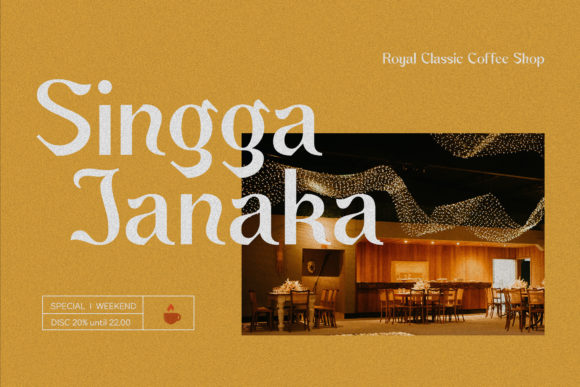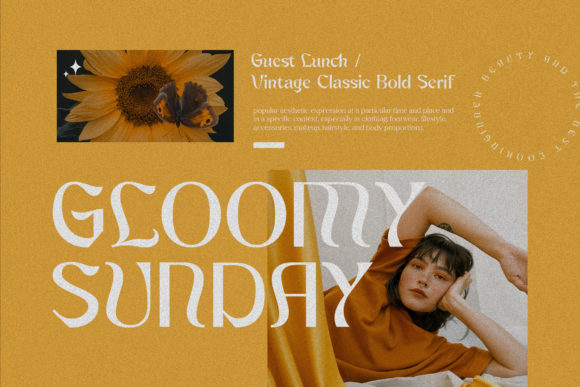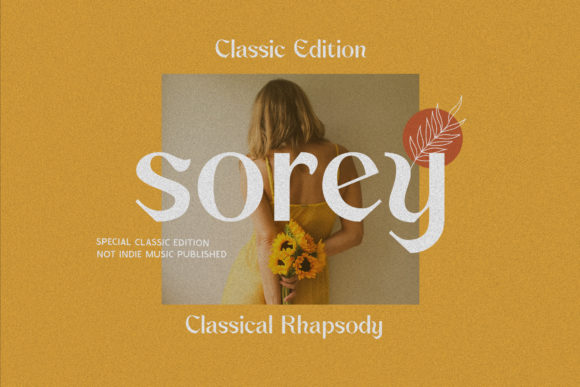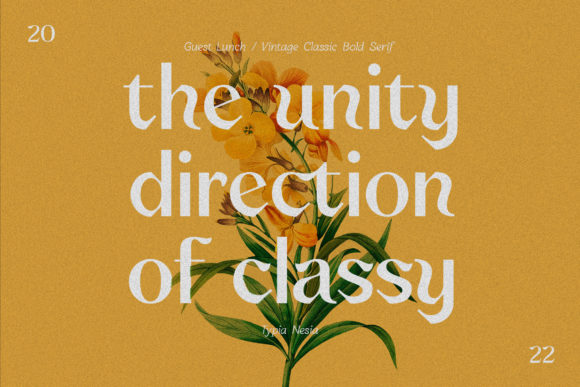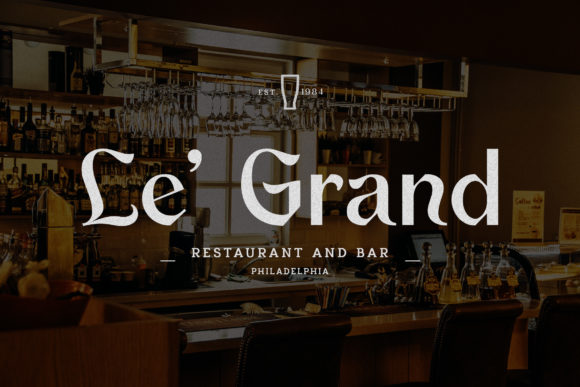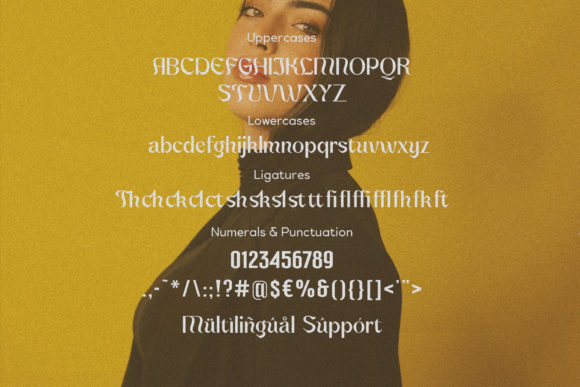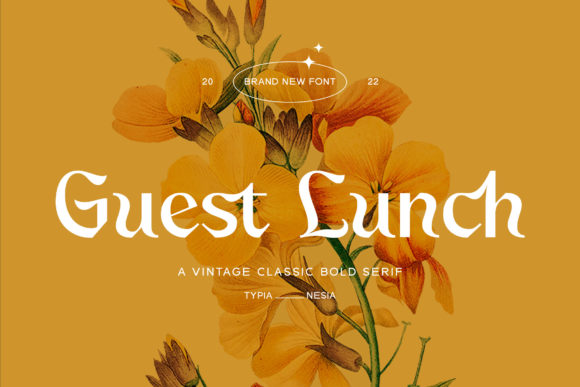
Introducing Guest Lunch Font: Elevate Your Designs with Elegance and Sophistication
In the world of design, typography plays a crucial role in conveying the tone and aesthetic of a project. For designers and crafters seeking a font that exudes luxury, class, and sophistication, Guest Lunch Serif is an exceptional choice. This versatile font is perfect for a wide range of applications, from high-end branding and editorial design to promotional materials and digital platforms.
Luxury and Versatility
Guest Lunch Serif is a masterclass in typographic design, boasting elegant lines, refined curves, and a sophisticated demeanor. Its versatility makes it an ideal choice for various projects, including:
- Luxury logo and branding: Create a lasting impression with a font that screams opulence and refinement.
- Classy editorial design: Elevate your publications with a typography that commands respect.
- Woman magazine: Add a touch of femininity and glamour to your content.
- Cosmetic brand: Convey a sense of high-end quality and sophistication.
- Fashion promotional: Make a statement with a font that’s as stylish as the designs you’re promoting.
- Art gallery branding: Showcase your art with a typography that’s as refined as the pieces on display.
- Museum: Add a sense of history and culture to your branding.
- Historical architecture: Pay homage to the past with a font that’s reminiscent of a bygone era.
- Boutique branding: Create a unique and luxurious identity for your boutique.
- Stationery design: Elevate your stationery with a typography that’s both elegant and refined.
- Blog design: Add a touch of sophistication to your online platform.
- Modern advertising design: Make a statement with a font that’s both modern and luxurious.
- Card invitation: Impress your guests with a typography that’s both elegant and refined.
- Art quote: Showcase your artistic side with a font that’s as creative as you are.
- Home decor: Add a touch of luxury to your home decor with a typography that’s both sophisticated and refined.
- Fantasy movie/game: Create a sense of wonder and magic with a font that’s both imaginative and luxurious.
- Novel/book/cover title: Make a lasting impression with a typography that’s both elegant and refined.
- Special events: Create a sense of occasion with a font that’s both luxurious and sophisticated.
Why Choose Guest Lunch Serif?
Guest Lunch Serif is more than just a font – it’s a design statement. Here are just a few reasons why you should consider it for your next project:
- Elegance and sophistication: Guest Lunch Serif exudes luxury and refinement, making it perfect for high-end branding and design projects.
- Versatility: This font is suitable for a wide range of applications, from print to digital platforms.
- Attention to detail: The font’s intricate details and refined curves make it a standout choice for designers seeking a typography that’s both elegant and refined.
- Easy to read: Despite its luxurious feel, Guest Lunch Serif is easy to read, making it perfect for body text and headlines.
Tips for Using Guest Lunch Serif
To get the most out of Guest Lunch Serif, here are a few tips to keep in mind:
- Use it sparingly: While Guest Lunch Serif is a beautiful font, it’s best used sparingly to avoid overwhelming the reader.
- Pair it with a sans-serif font: For body text, consider pairing Guest Lunch Serif with a sans-serif font to create visual interest.
- Experiment with font sizes: Don’t be afraid to experiment with different font sizes to create visual hierarchy.
Guest Lunch Serif is a luxurious and versatile font that’s perfect for designers and crafters seeking to elevate their designs. With its elegant lines, refined curves, and sophisticated demeanor, this font is sure to make a lasting impression. Whether you’re working on a luxury branding project, editorial design, or digital platform, Guest Lunch Serif is an exceptional choice.